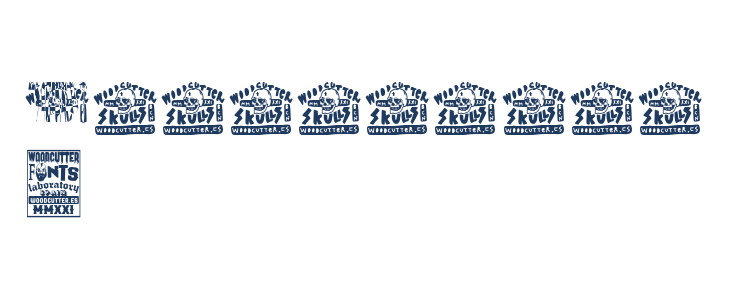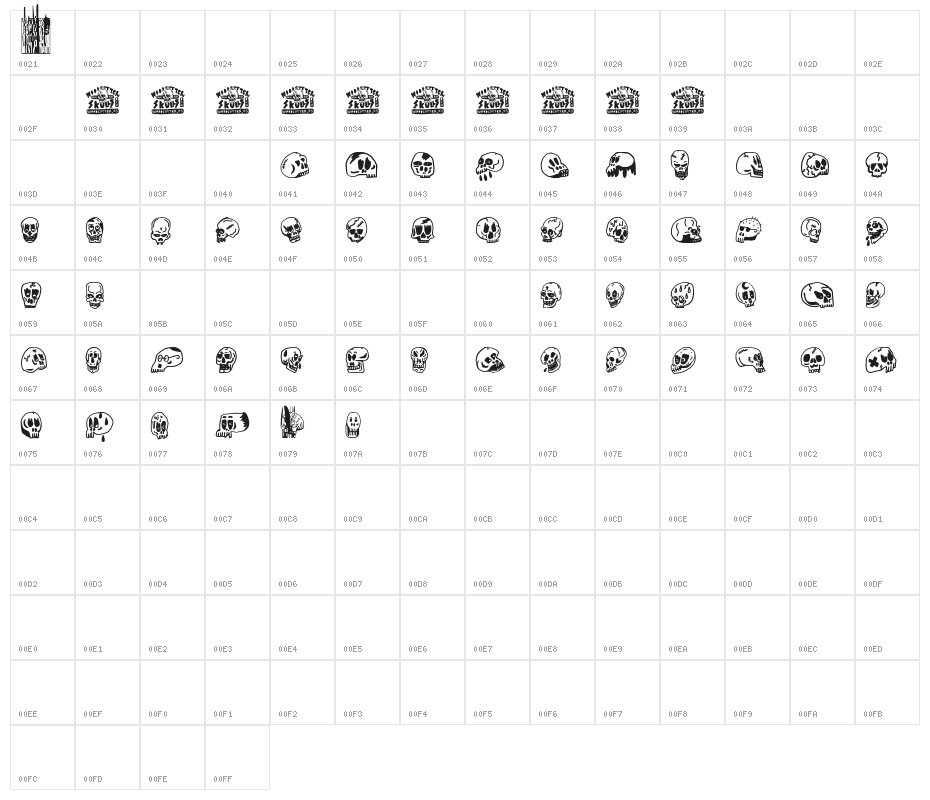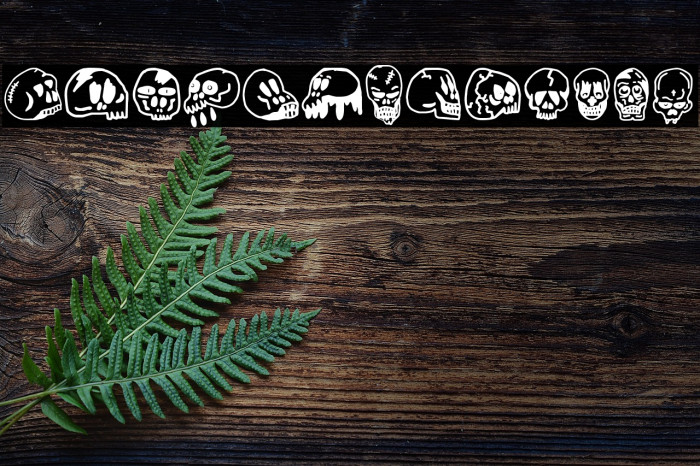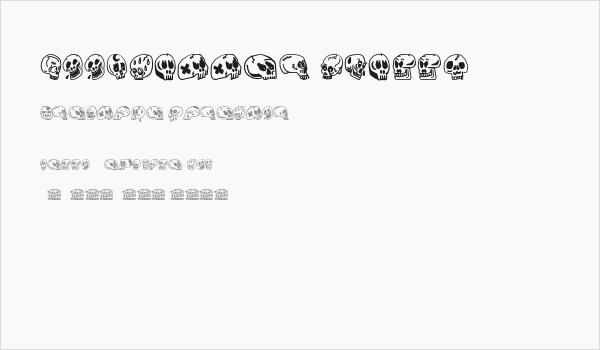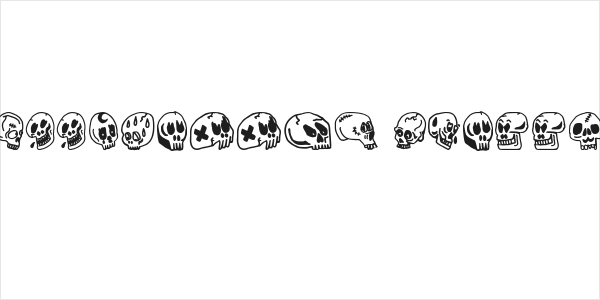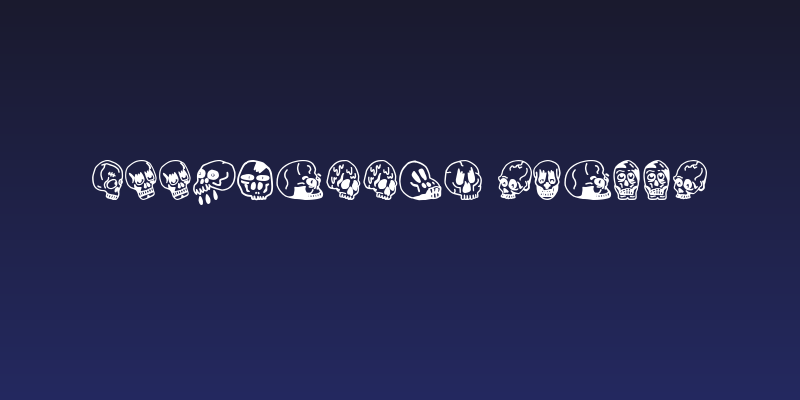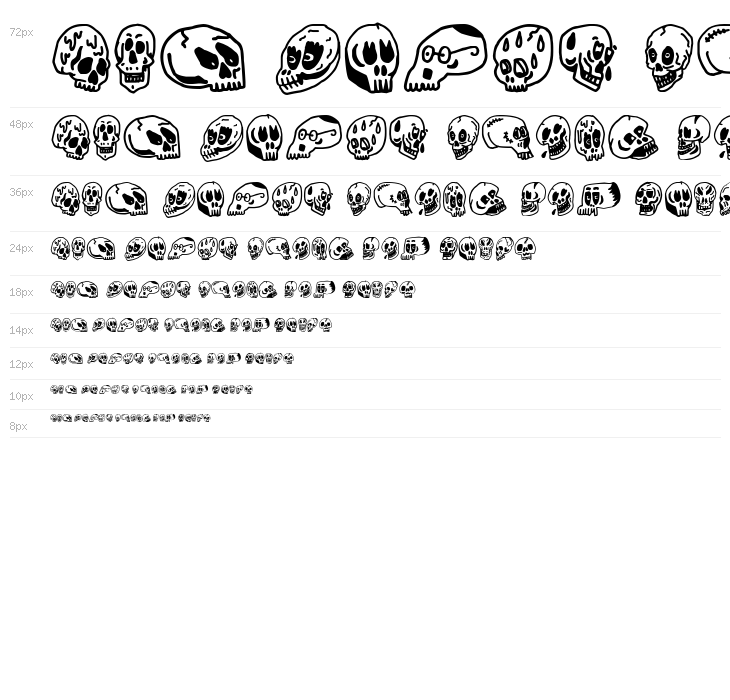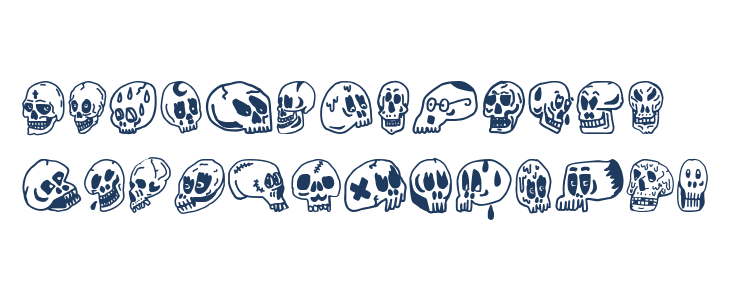
Woodcutter Skulls Font
This font is a highly decorative and playful collection of skull illustrations, each uniquely designed with varying expressions and details. The characters are bold and cartoonish, featuring exaggerated features and whimsical elements. The style is reminiscent of hand-drawn art, with a focus on creativity and humor. Each skull has its own personality, making the font suitable for projects that require a fun and edgy aesthetic. The font lacks traditional letterforms, focusing instead on a thematic representation of skulls.
| Use Case | Logos, Posters, Themed Events |
| Proposed Projects | Ideal for Halloween-themed designs, edgy posters, graphic novels, and creative branding projects. |